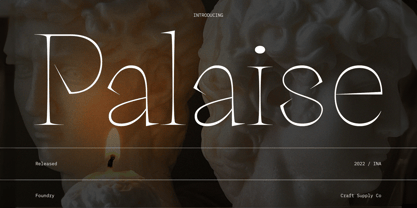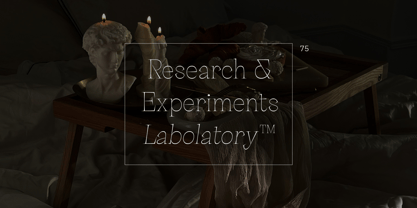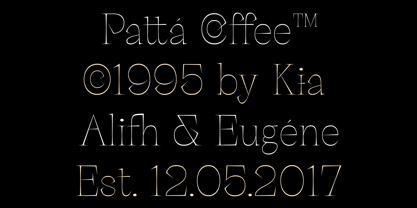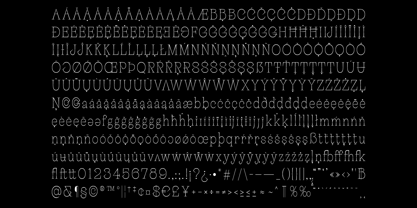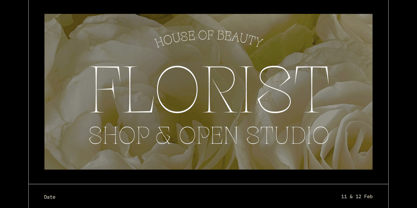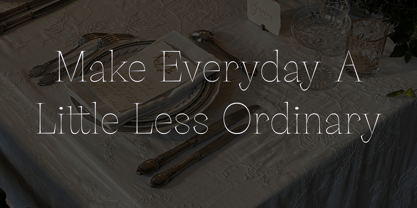
Palaise
by Craft Supply Co
The Palaise Font Family was designed by Trio Nazzar Saputra, Wahyu Hadi Yuana and published by Craft Supply Co. Palaise contains 2 styles and family package options. More about this family
Introducing Palaise, a charismatic serif typeface combines long and sharp edge structure to maintain a flashy look for display purposes. You want to make a greeting card or a package design, or even a brand identity, craft design, any DIY project, book title, poster, pop vintage design, retro design or any purpose to make your art/design project look pretty and trendy? Feel free to play with this typeface!
Designers: Trio Nazzar Saputra, Wahyu Hadi Yuana
Foundry: Craft Supply Co